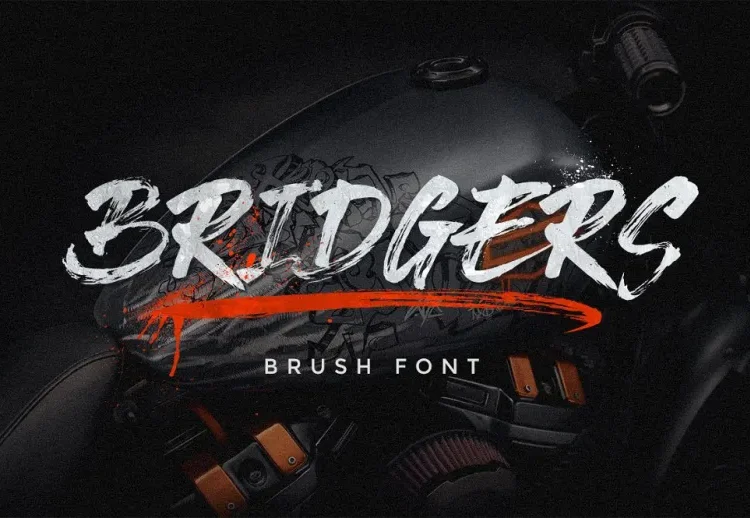
Bridgers Font
Bridgers is a hand-painted brush font designed in UPPERCASE, available in a beautiful set that includes swashes for versatile customization. Its unique character design makes it perfect for a wide range of applications.
• Swashes: Easily mix and match swashes to enhance your designs.
• Applications: Ideal for logos, name tags, handwritten quotes, product packaging, merchandise, social media, greeting cards, and more.
Bridgers Font offers a distinctive, artistic touch to your projects, capturing the essence of handcrafted elegance.